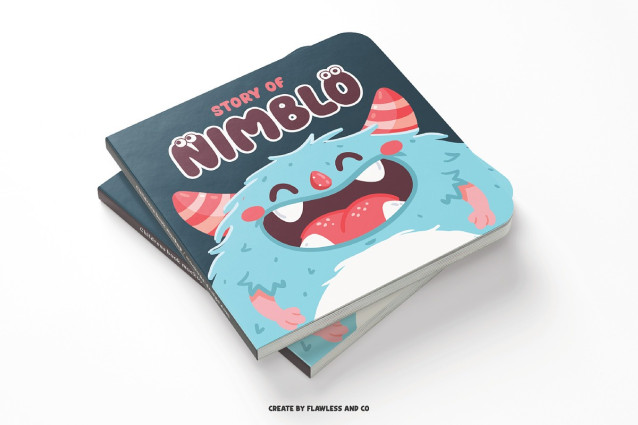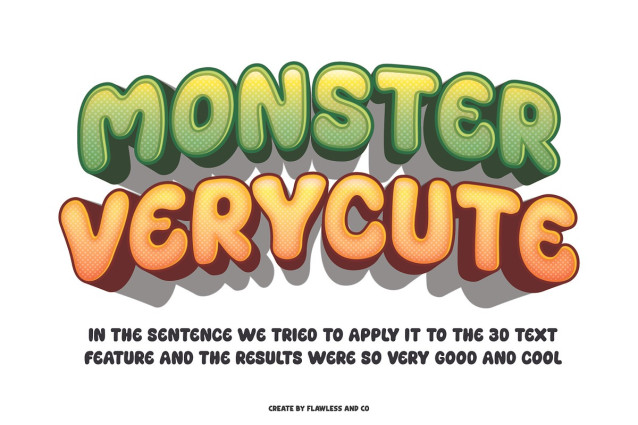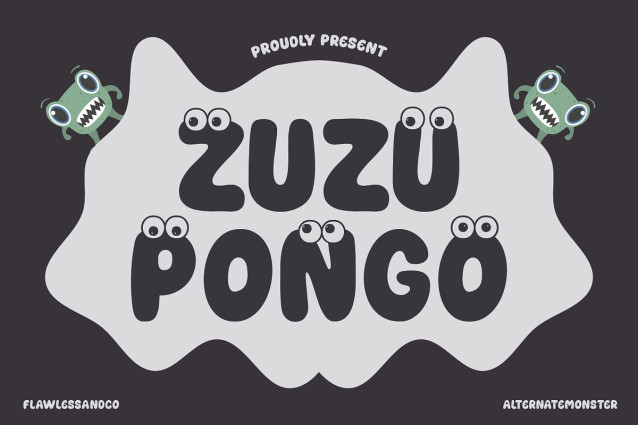
Zuzupongo Display Font
Zuzupongo Display Font is a fun, quirky, and cheerful monster-inspired font that brings smiles and creativity to your projects. With its bold, rounded shapes and adorable monster vibes, this font is perfect for adding a touch of playfulness and friendliness to any design. Whether you’re designing for kids’ books, birthday invitations, party flyers, cartoon titles, or playful branding projects, Zuzupongo is the ideal choice to make your work stand out with charm and cuteness.